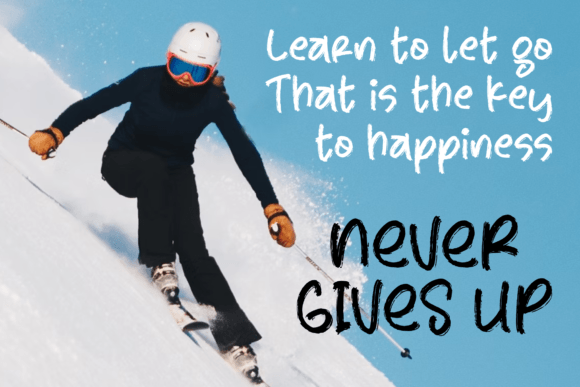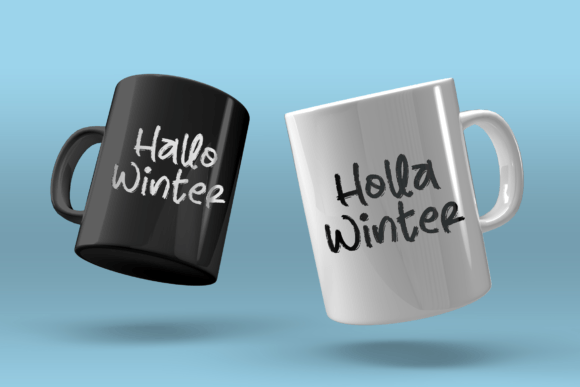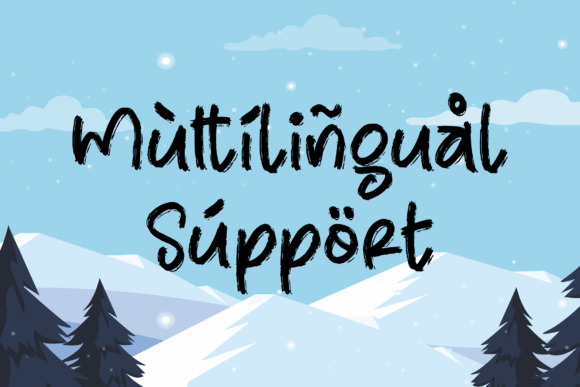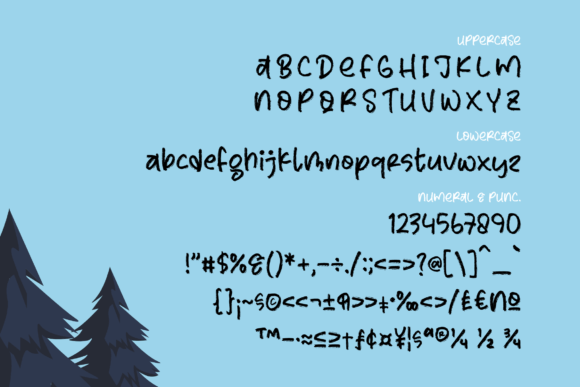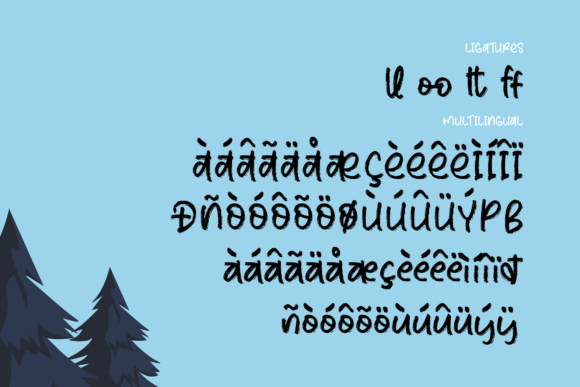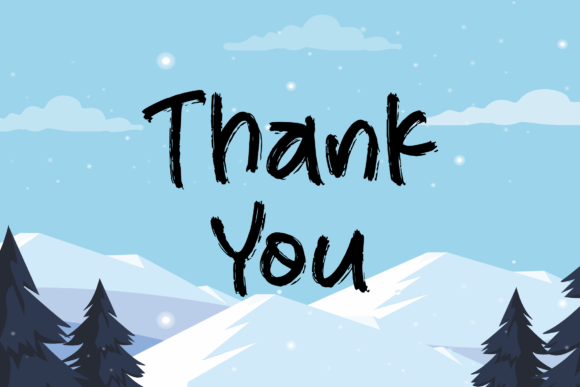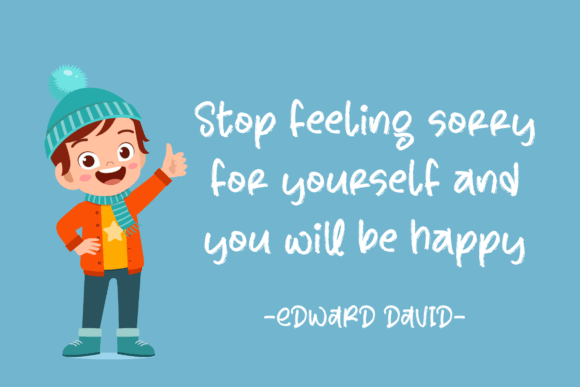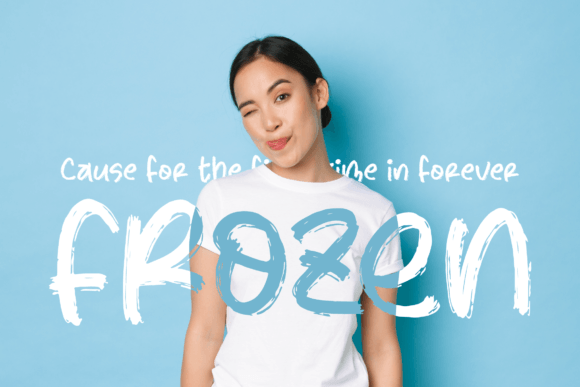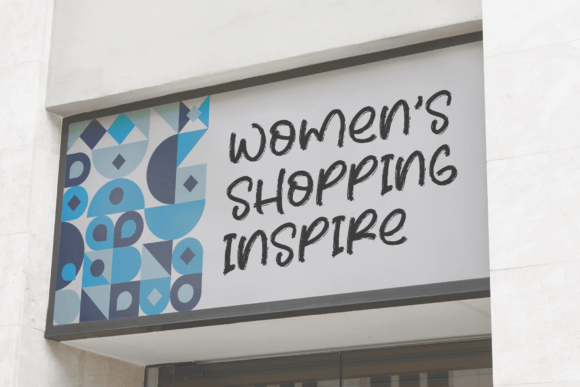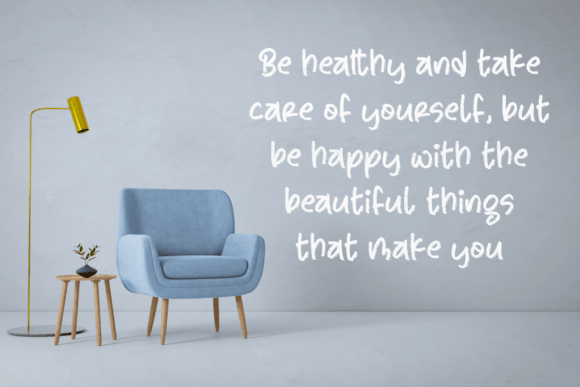
Snowflake Font
About Snowflake Font
Snowflake Font is a quirky handwritten typeface that features a dry brush texture for a creative, handmade look. With playful strokes and unique personality, this font adds authenticity and energy to any project. Because of its versatile design, Snowflake Font is perfect for posters, invitations, logos, greeting cards, and branding.
A Quirky Handwritten Typeface with Personality
Handwritten fonts often bring originality to design, and Snowflake Font enhances this with its textured brush style. Its playful details make designs approachable, while its structure keeps the text clear and stylish. Moreover, its quirky rhythm adapts easily to both casual and professional projects. As a result, it is a dependable option for designers who want creativity and charm in one font.
For stationery lovers, Snowflake Font is an excellent companion. For example, it can transform a simple birthday card into a lively and memorable keepsake. In addition, it works beautifully for wedding invitations, thank-you notes, and seasonal greetings. Because of its dry brush strokes, every project feels personal, handcrafted, and warm.
A Script Typeface for Logos and Branding
Brands and creatives who want to showcase originality can rely on Snowflake Font. It brings individuality and friendliness to logos, labels, and packaging. Furthermore, on social media, it enhances posts, stories, and promotional banners with a bold handwritten appeal. When paired with clean sans serif fonts, Snowflake Font balances professionalism with creativity.
Another strength of SnowflakeFont is its adaptability across platforms. In print, it works well on posters, magazines, brochures, and merchandise. Digitally, it adds charm to websites, blogs, and presentations. Since it remains legible across both small and large sizes, this quirky brush script is reliable for all kinds of creative projects.